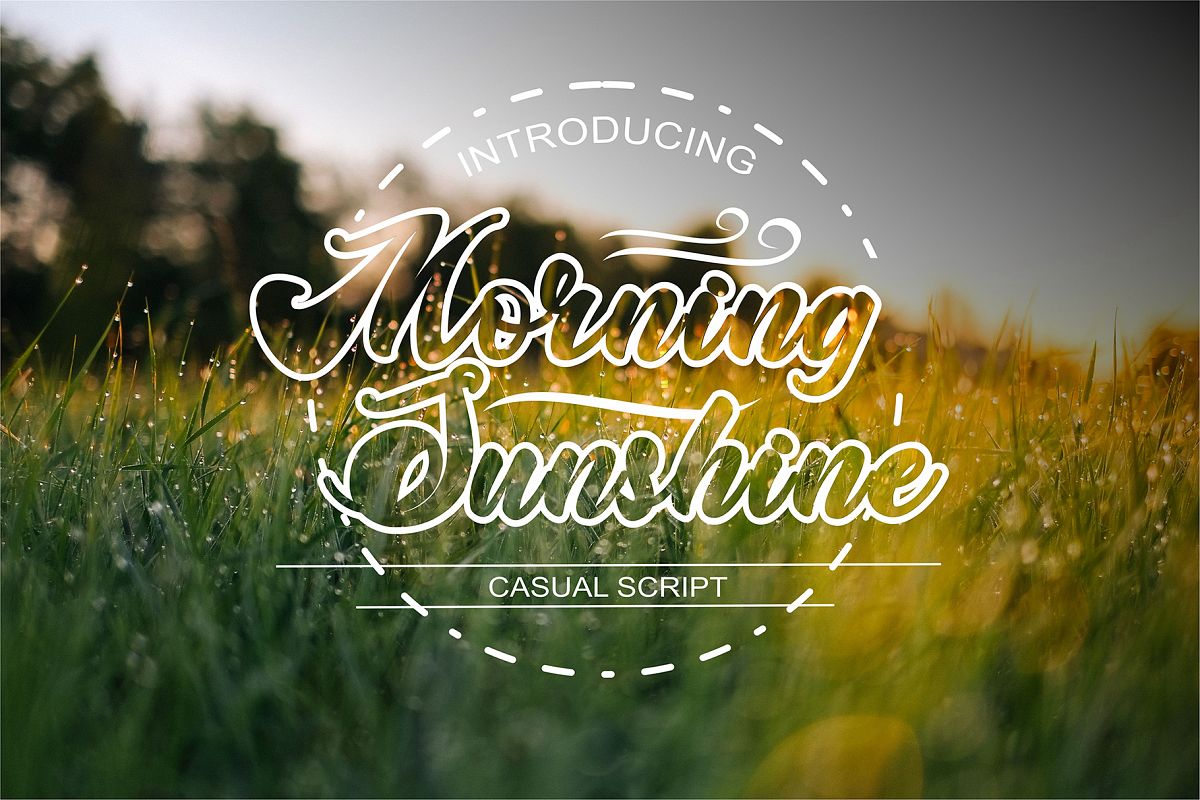
Morning Sunshine
Morning Sunshine outline
Morning Sunshine is Layered Bold Script inspired by the freshness of the morning. Suitable for various design needs